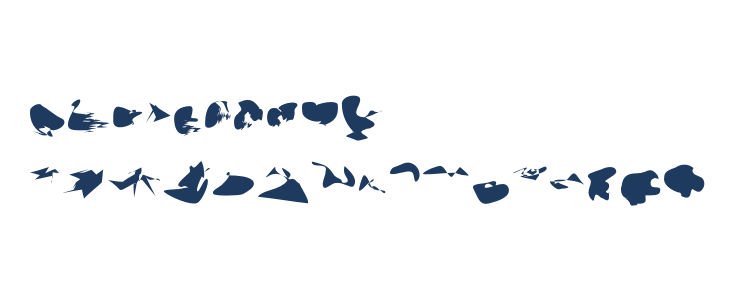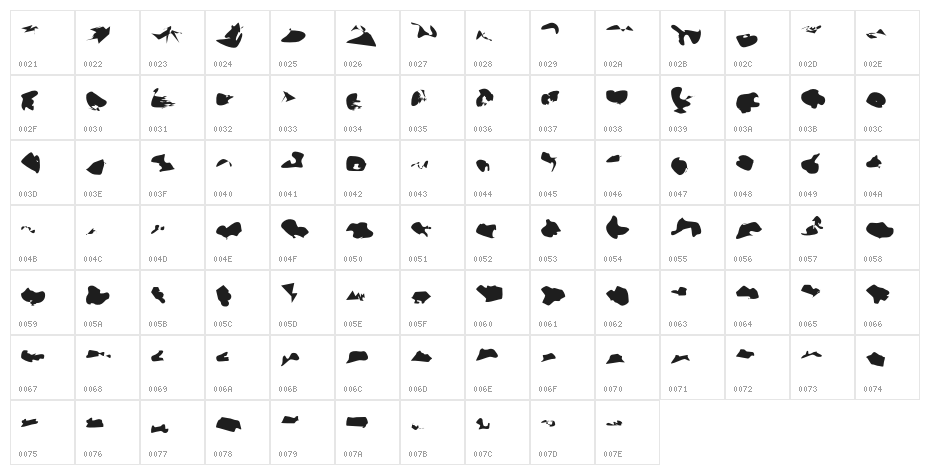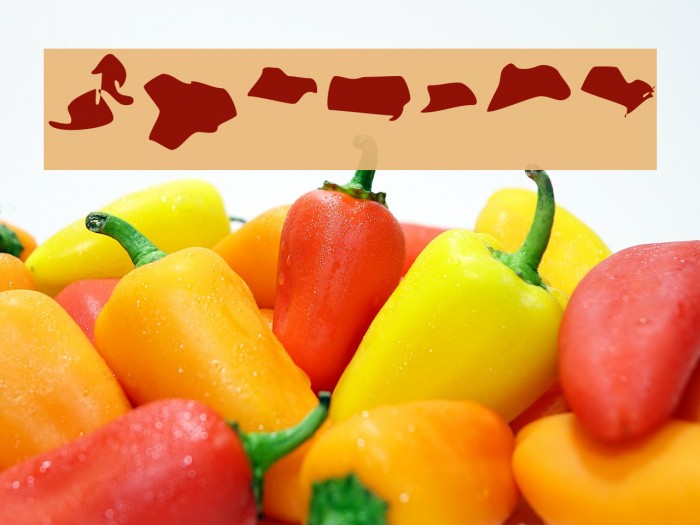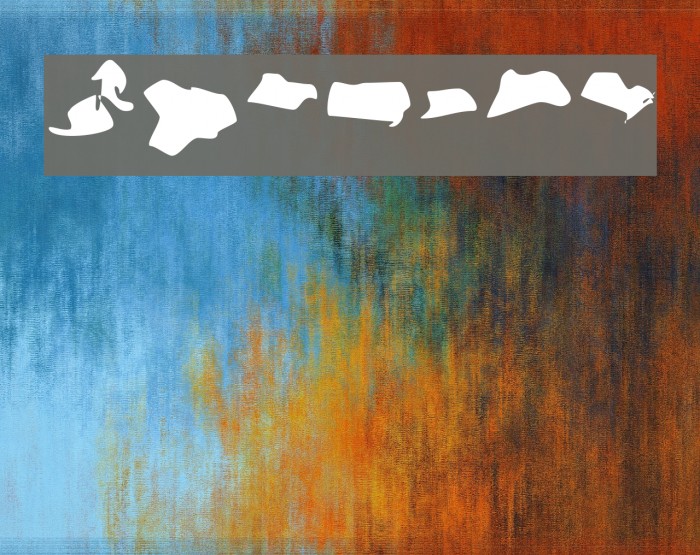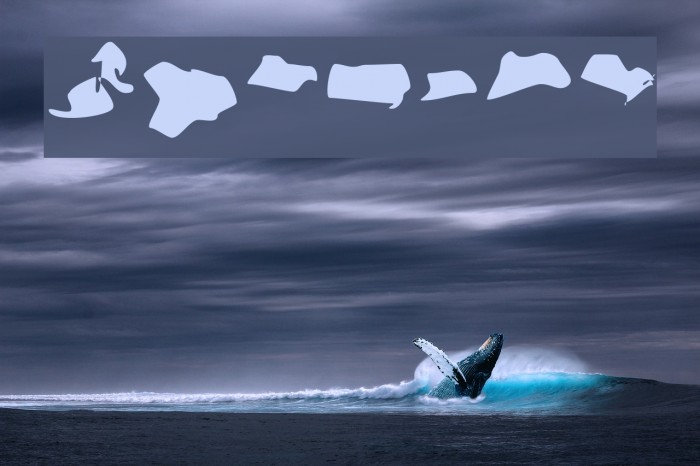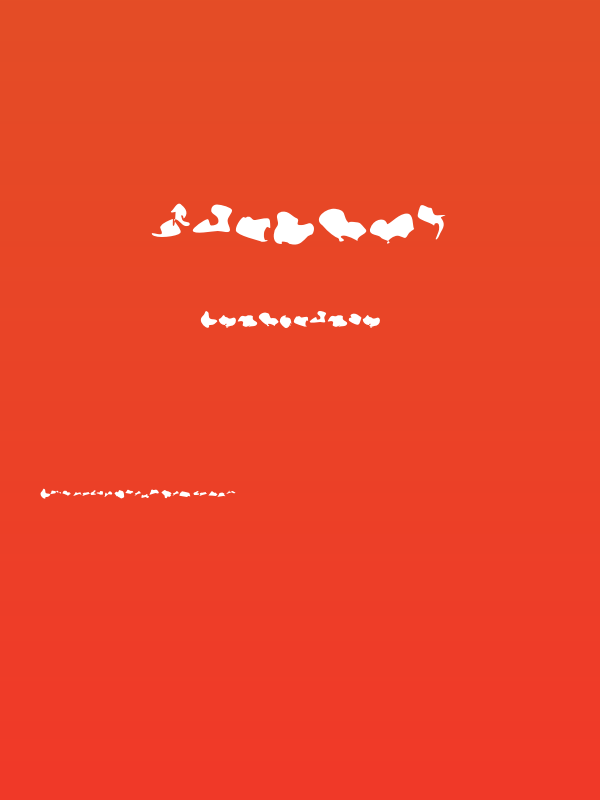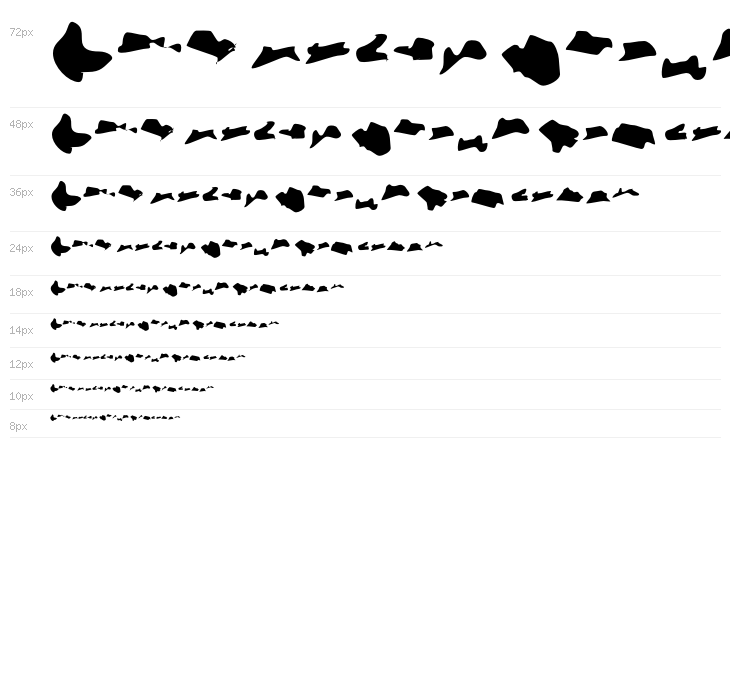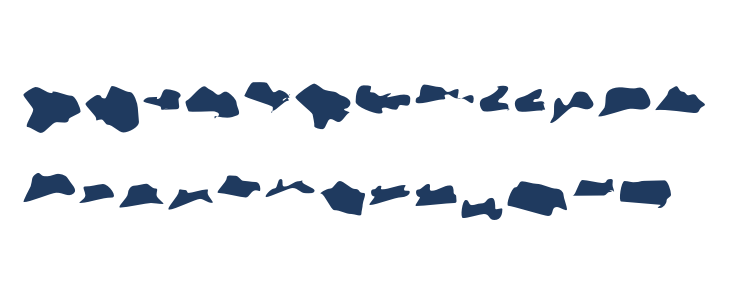
Warzone Font
| 整体风格 | Modern, Artistic |
| 使用场景 | Logos, Posters, Art projects |
| 推荐项目 | Ideal for artistic projects, album covers, street art designs, or any creative work that requires a bold and unconventional typeface. |